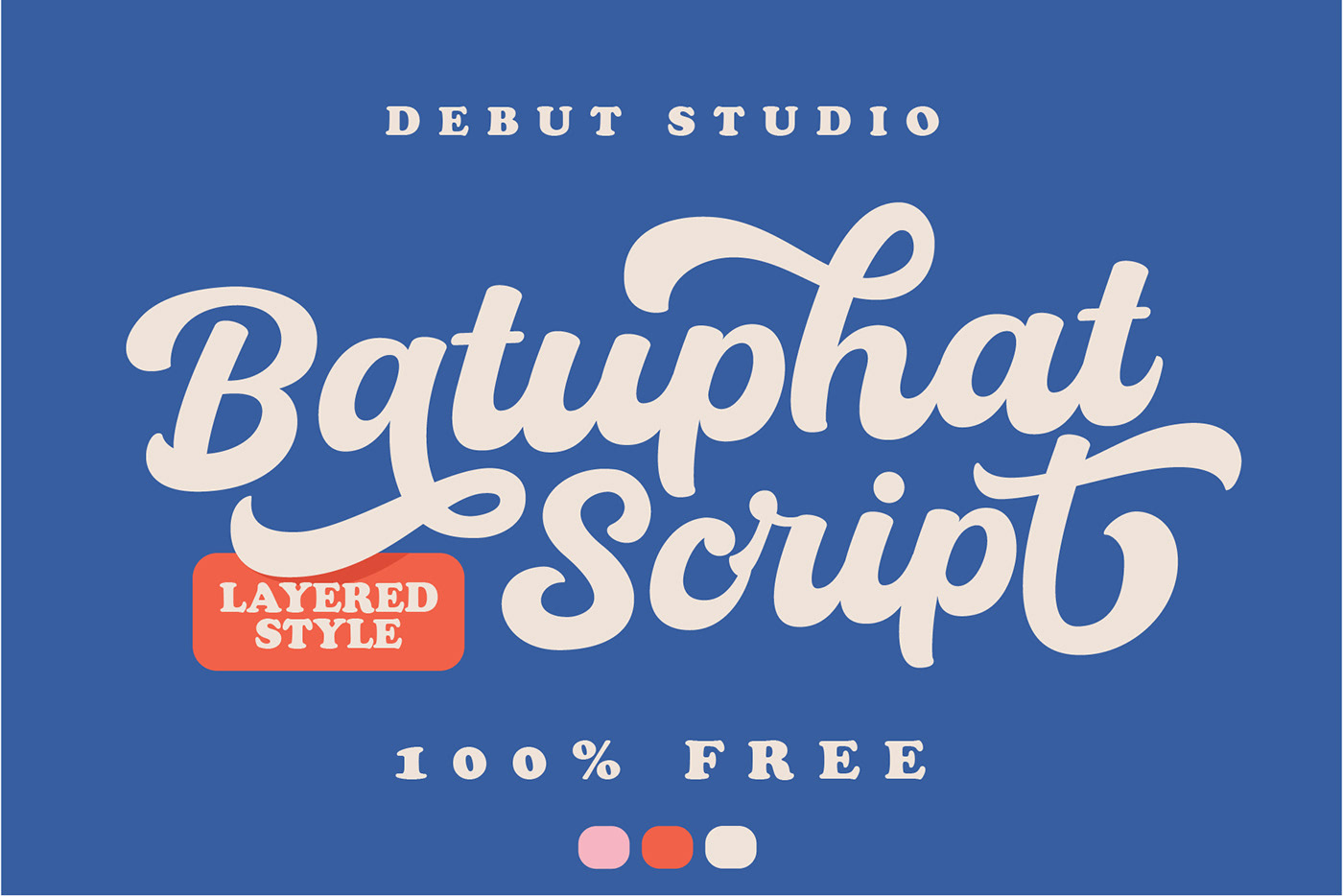
Introducing, New Arrival from Debut Studio : Batuphat Script (Layered Fonts). This font has 2 Features, Regular and Extruded, so it can generate interesting fonts to see, you no longer need to worry about how to make effect on the text.
This font is suitable for young, passionate design, such as logo design, t-shirts, branding, and various other design purposes.
This collection will be perfect for creating posters, art prints, apparel and t-shirt designs, Instagram and other social media posts, and many more.